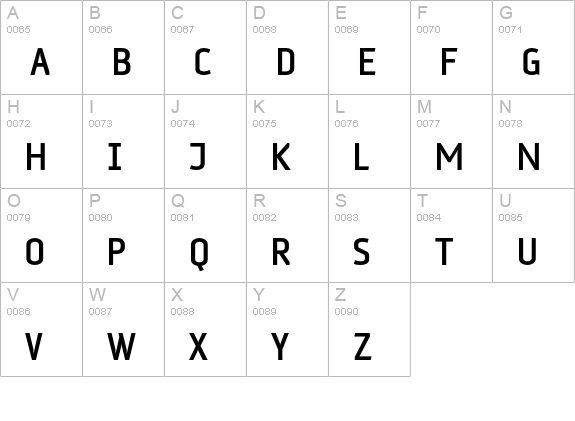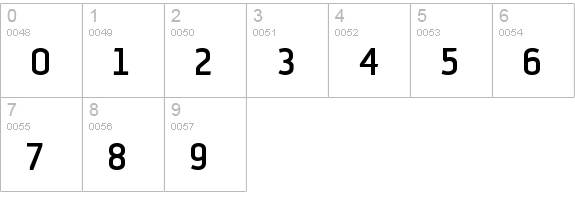
AFKlampenborg-Medium is a balanced, medium-weight variant in the AFKlampenborg typeface family \xE2\x80\x94 well suited to sub-headlines, navigation, and balanced editorial work.
AFKlampenborg-Medium font is a versatile and elegant typeface that exudes sophistication and style. With its clean lines and balanced letterforms, this font is perfect for a wide range of design projects, from branding to editorial design. The medium weight strikes the perfect balance between legibility and impact, making it ideal for both headlines and body text. One of the best things about AFKlampenborg-Medium font is that it is completely free to download. You can easily access this stunning typeface at FontsMarket.com, where you can download it and start using it in your projects right away. Don't miss out on this opportunity to elevate your designs with the timeless beauty of AFKlampenborg-Medium font.